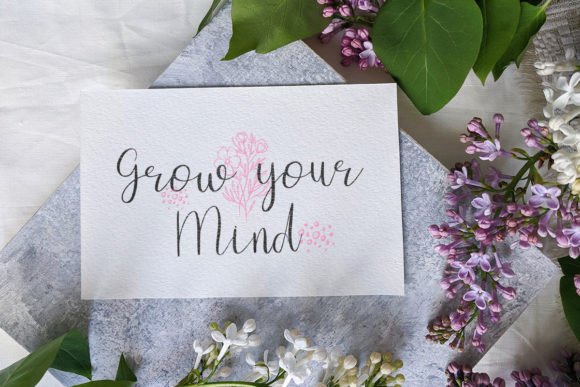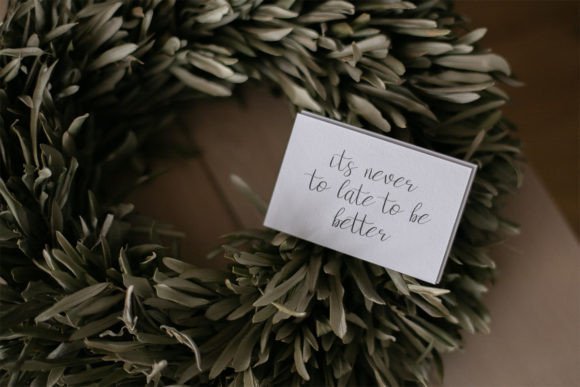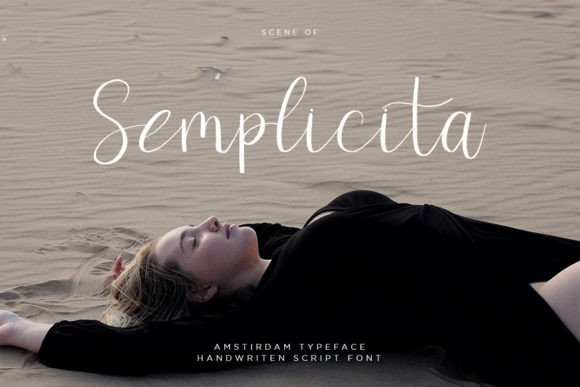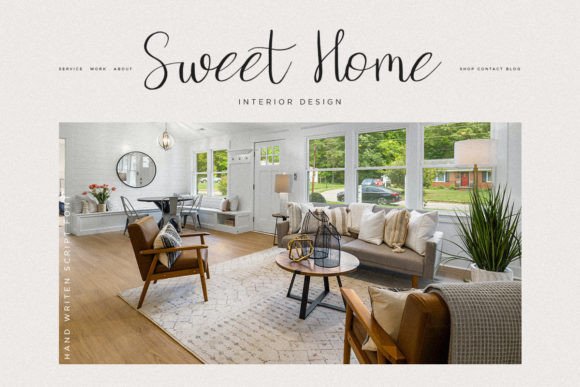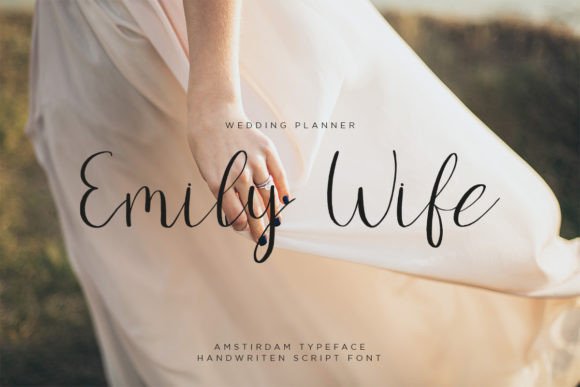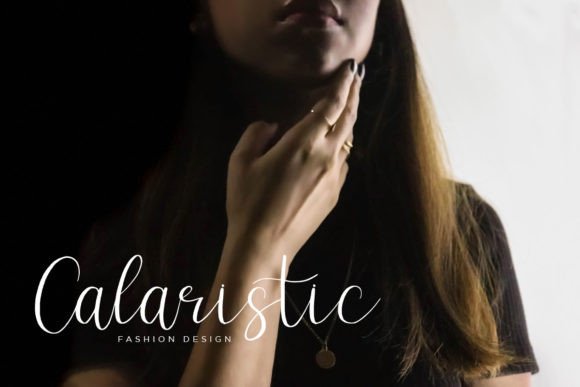
Discover the Charm of Amstirdam Font: A Sweet and Cursive Handwritten Delight
Are you on the hunt for a font that exudes elegance, romance, and playfulness? Look no further than the Amstirdam Font, a sweet and cursive handwritten font that is sure to captivate your audience. This gentle font is designed to add a touch of sophistication and whimsy to a wide range of design projects, making it an ideal choice for designers and crafters alike.
The Characteristics of Amstirdam Font
Amstirdam Font is a beautifully crafted handwritten font that boasts a unique blend of elegance and playfulness. Its cursive strokes and flowing lines give it a romantic and whimsical feel, making it perfect for designs that require a touch of sophistication. The font’s gentle curves and soft edges create a soothing and calming effect, making it ideal for designs that aim to evoke emotions and create a connection with the audience.
What Makes Amstirdam Font So Versatile?
One of the standout features of Amstirdam Font is its versatility. This font can be used on a wide range of design projects, from branding and logos to wedding materials, greeting cards, and marketing promotions. Its elegant yet casual feel makes it perfect for designers who want to create a sophisticated and refined look without appearing too formal or stiff.
Perfect for Branding and Logo Design
Amstirdam Font is an excellent choice for branding and logo design. Its unique and memorable curves make it easy to recognize and recall, making it perfect for creating a lasting impression on your audience. Whether you’re designing a logo for a new business or rebranding an existing one, Amstirdam Font is sure to make your mark.
Wedding and Event Design
Amstirdam Font is also a popular choice for wedding and event design. Its romantic and whimsical feel makes it perfect for creating beautiful wedding invitations, save-the-date cards, and other event materials. The font’s elegant and refined look also makes it suitable for designing luxurious and sophisticated event branding.
Fashion and Marketing Design
In addition to its use in branding and wedding design, Amstirdam Font is also a great choice for fashion and marketing design. Its stylish and sophisticated look makes it perfect for creating fashion lookbooks, marketing promotions, and advertising materials that require a touch of elegance and refinement.
Why Choose Amstirdam Font?
So why choose Amstirdam Font over other fonts? Here are just a few reasons:
- Unique and Memorable: Amstirdam Font has a unique and memorable design that will make your projects stand out from the crowd.
- Elegant and Refined: The font’s elegant and refined look makes it perfect for designs that require a touch of sophistication.
- Versatile: Amstirdam Font can be used on a wide range of design projects, from branding and logos to wedding materials and marketing promotions.
- Easy to Read: The font’s clear and flowing lines make it easy to read, even at small sizes.
In conclusion, Amstirdam Font is a sweet and cursive handwritten font that is sure to delight designers and crafters alike. Its elegant and refined look, combined with its versatility and unique design, make it an excellent choice for a wide range of design projects. Whether you’re designing a logo, creating wedding materials, or working on a marketing campaign, Amstirdam Font is sure to add a touch of sophistication and whimsy to your designs.